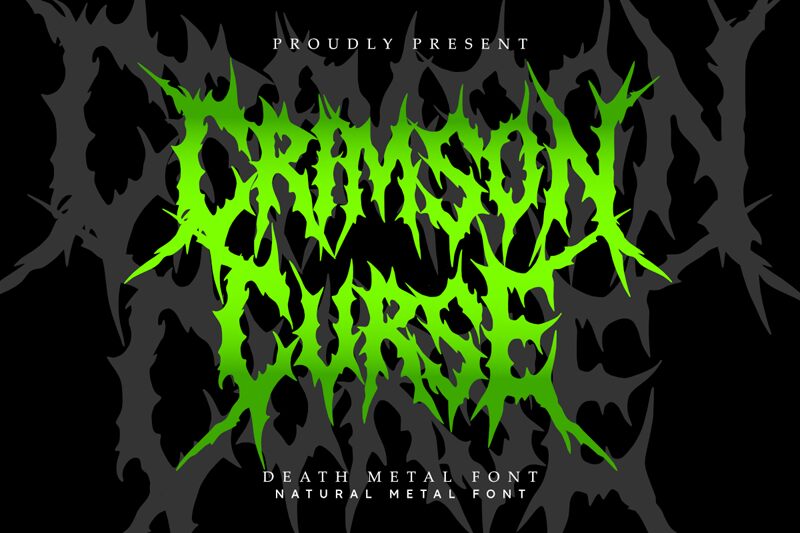
Crimson Curse font is an inventive creation by Muhammad Yafinuha. This free Gothic font is a dynamic blend of sharp, intense, and chaotic strokes that immediately catches the attention of viewers. Its highly artistic structure can alter a bland piece into a well-designed and creative one. While the display typeface was created for a specific niche, that of horror and abnormality, creative designers can push boundaries and use it for other styles. The possibilities are endless!
Whether you have a personal project or a client brief that touches on dark themes, Crimson can help you create masterpieces under a short period of time. Use it in your digital designs for social media posts, blogs, magazine covers, and web pages.